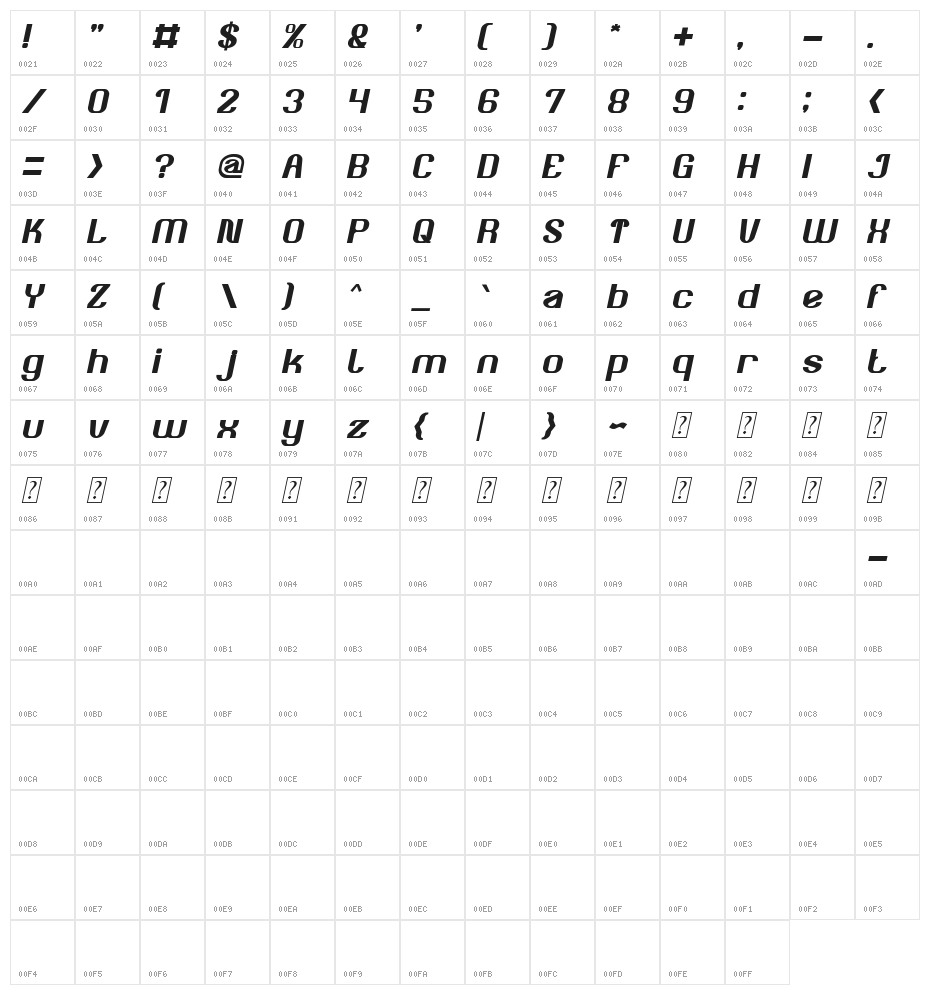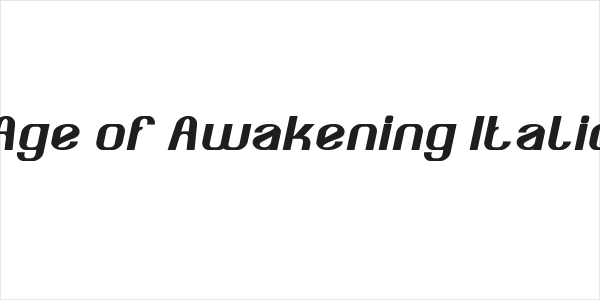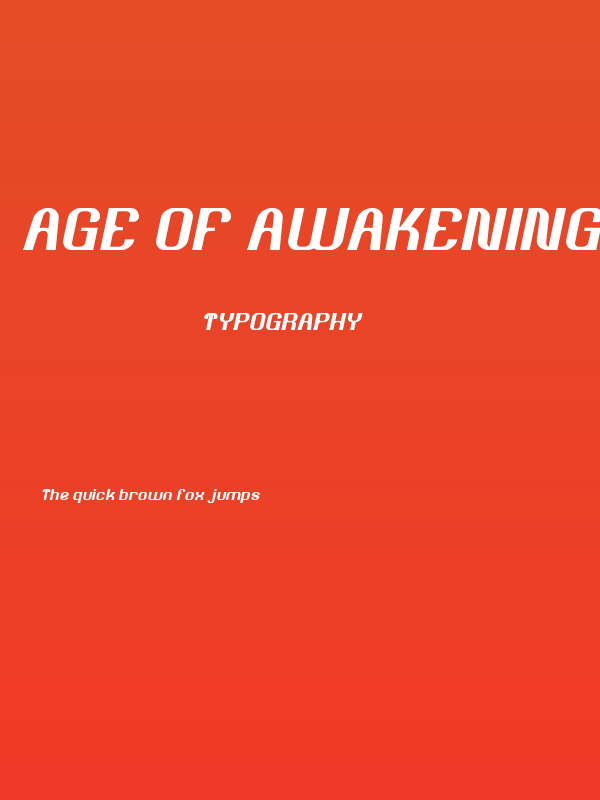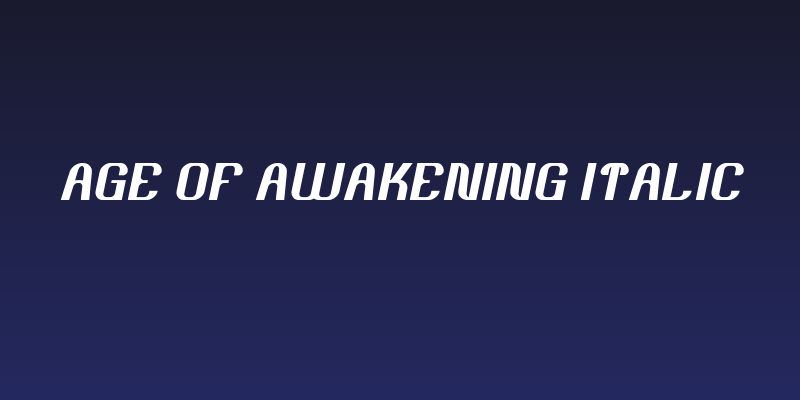
Age of Awakening Italic Font
Age of Awakening Italic Description
This font features a dynamic and modern italic style with a distinct slant, giving it a sense of motion and energy. The characters are bold and slightly condensed, with a uniform stroke width that maintains consistency across both uppercase and lowercase letters. The numerals and special characters follow the same stylistic cues, ensuring a cohesive appearance. The design is clean and legible, making it suitable for various applications where a contemporary and assertive look is desired.